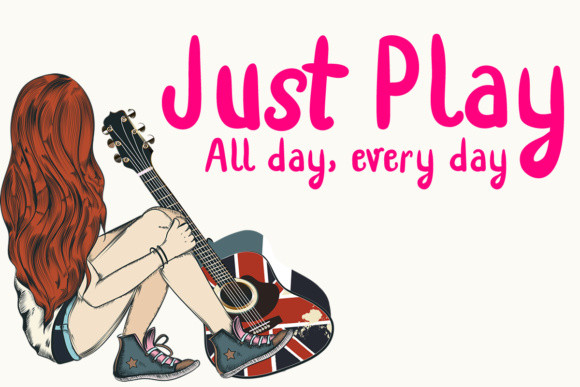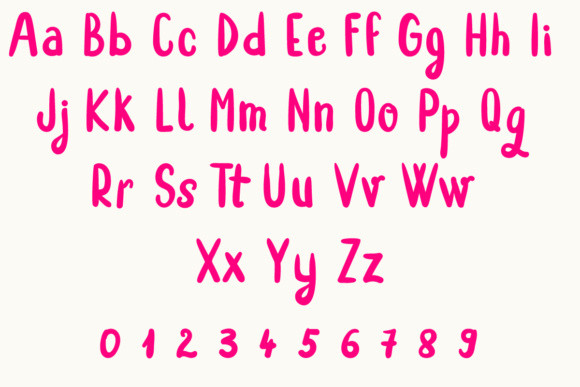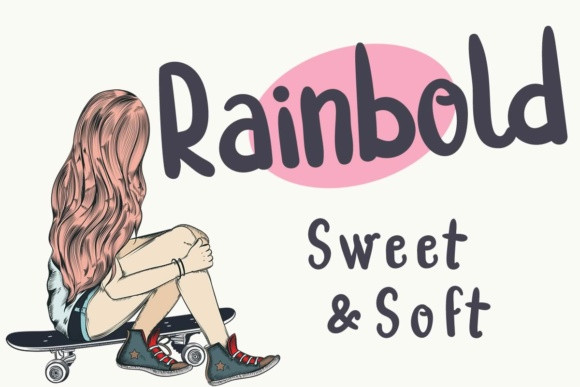
Rainbold Font
Rainbold is a bold, rounded typeface that allows you to discover fun little details in each and every letter.
The Rainbold font is smooth like a baby and soft like butter.